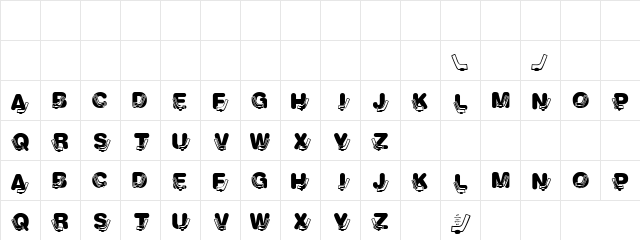
Sox Box Regular
Design Context for Sox Box Typeface
Sox Box is a composed and adaptable typeface that performs quietly and consistently across a wide range of design contexts.